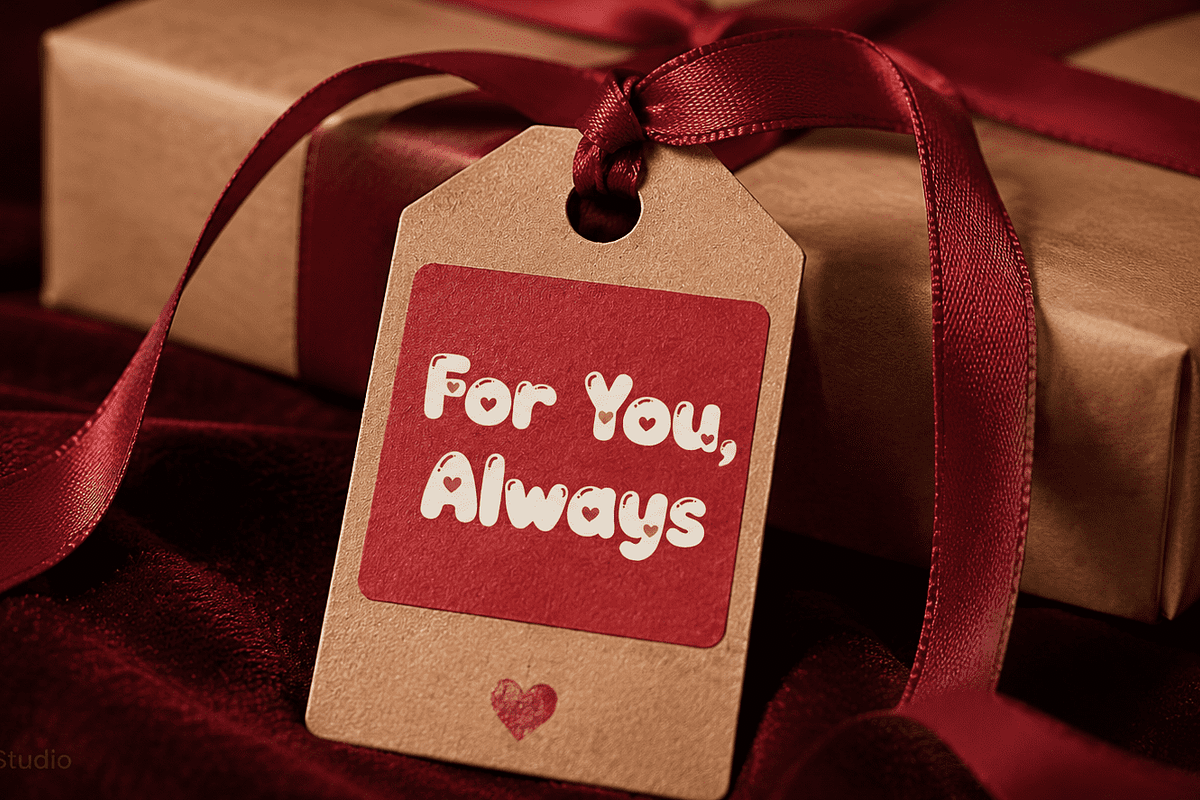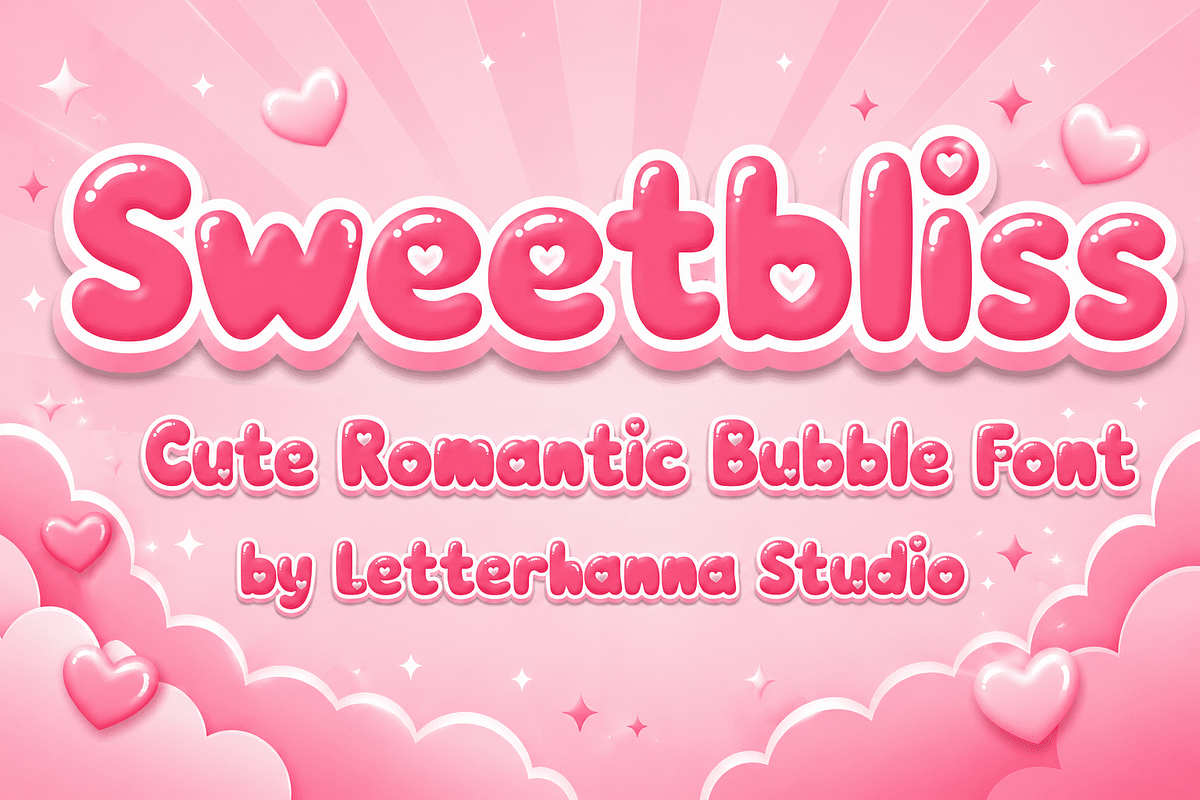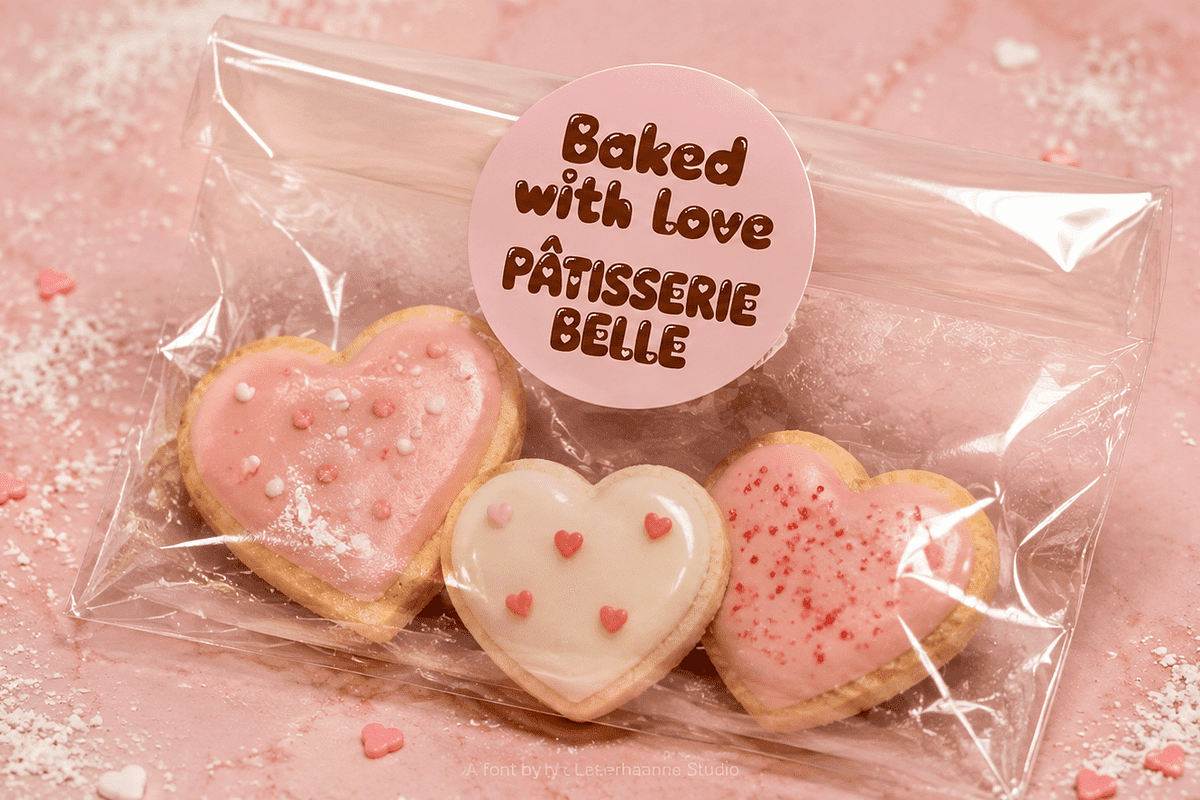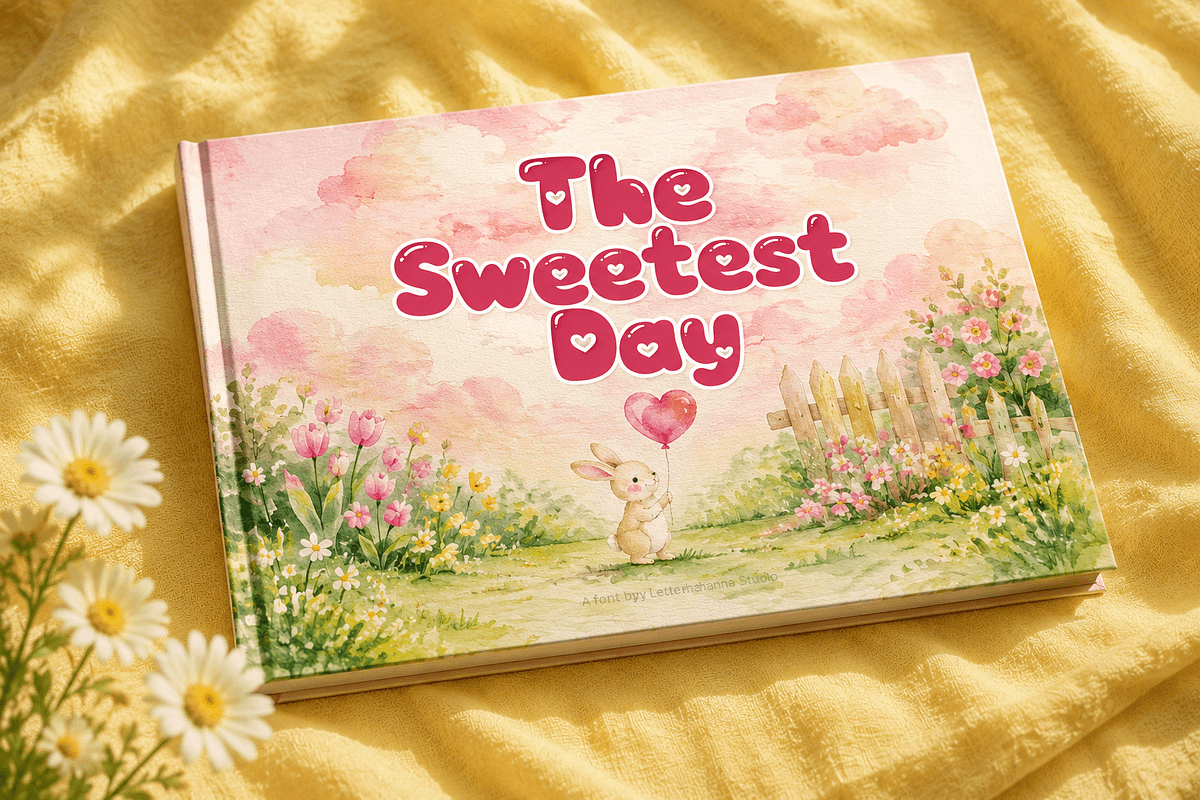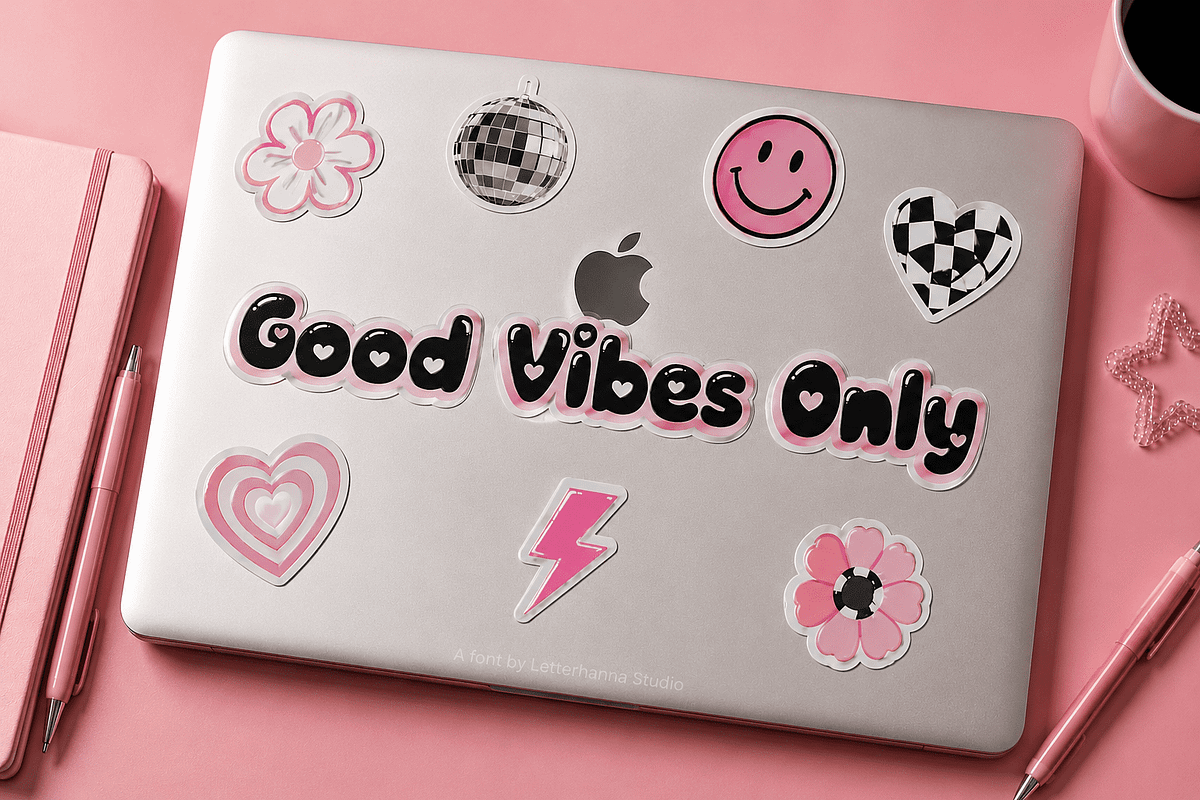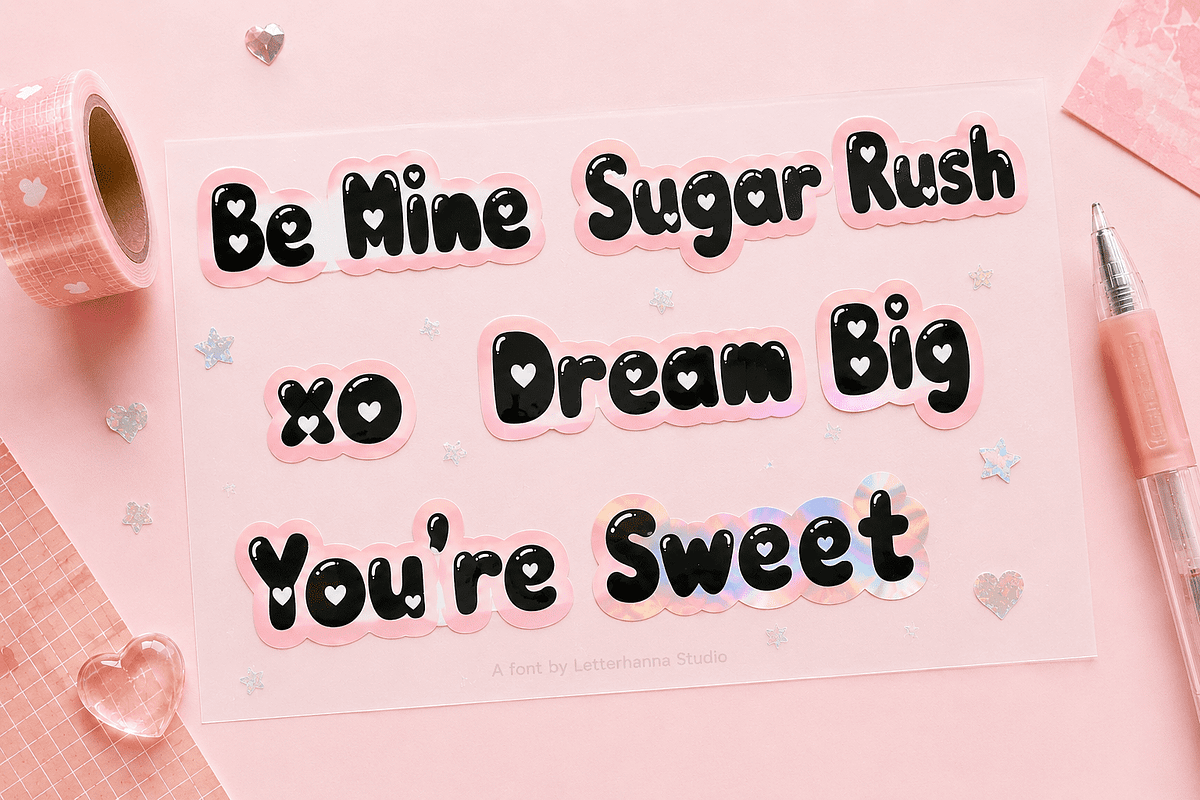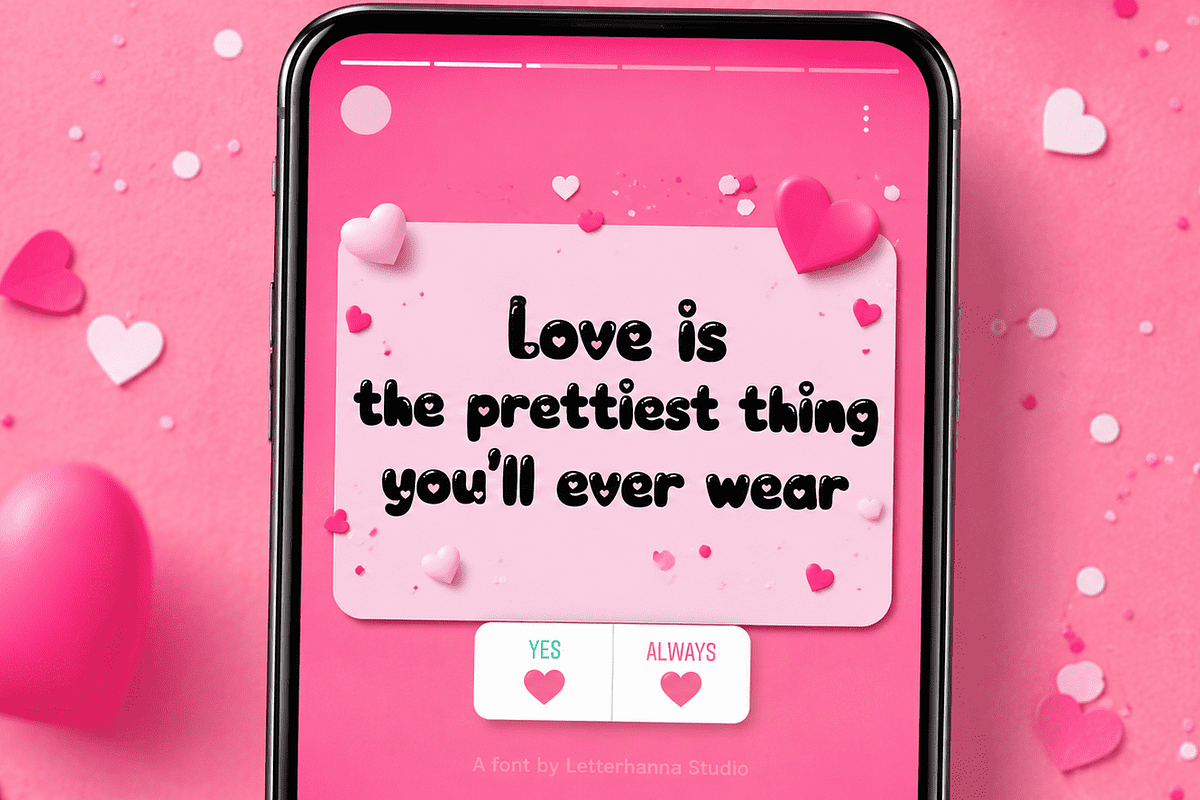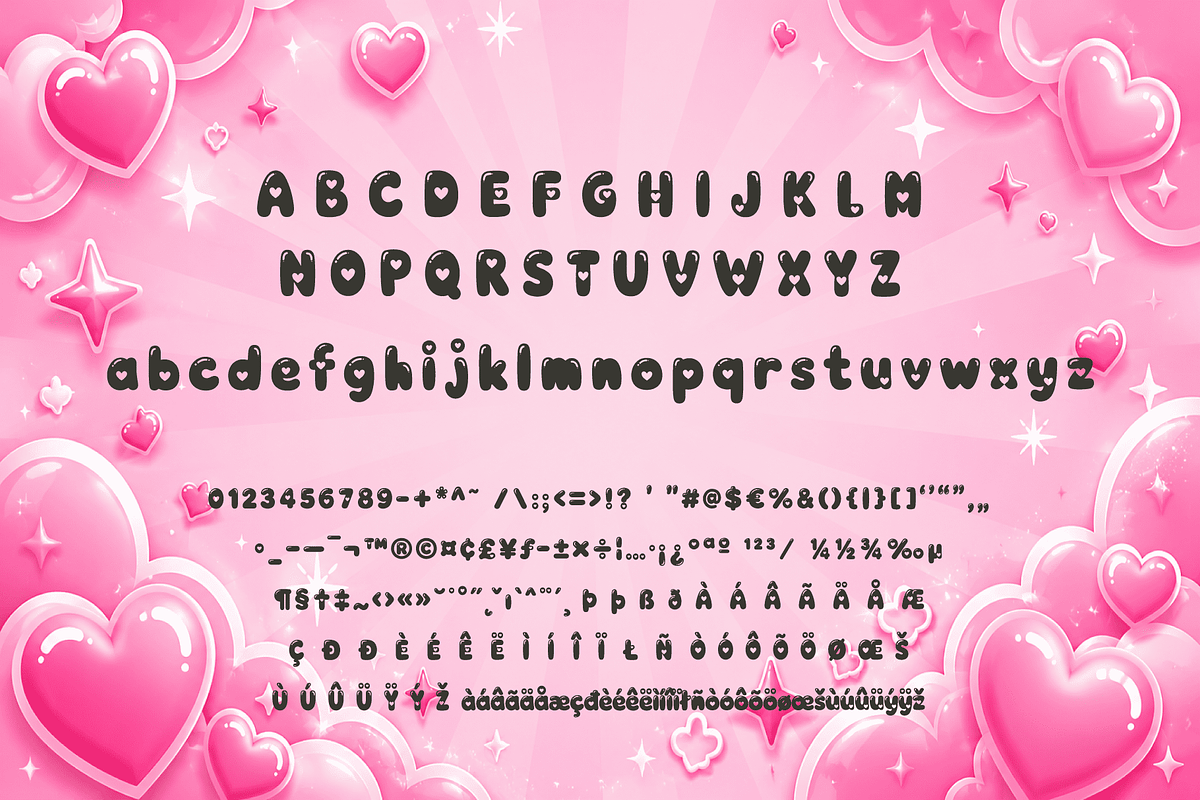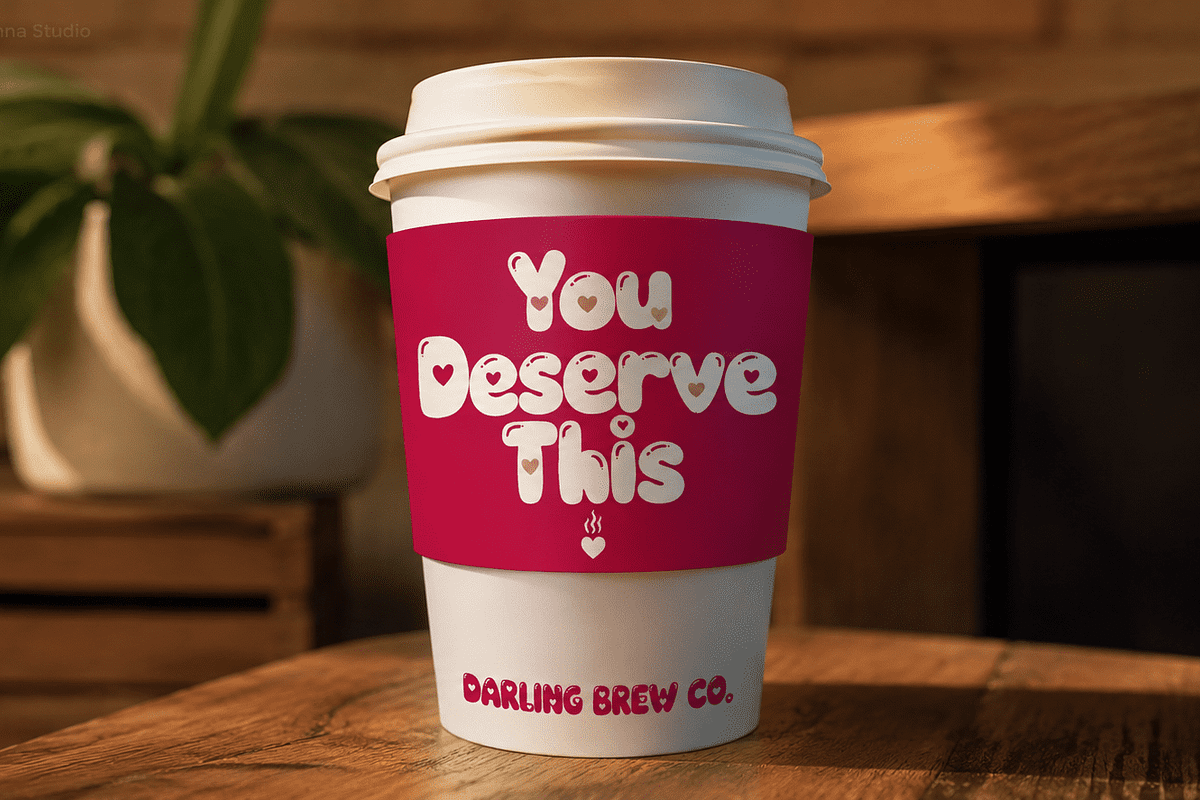
Sweetbliss Font
What if your font could make someone feel something the moment they read it?
That's the question that sparked Sweetbliss — a font born from a single, honest obsession: making letters feel like a warm hug.
Sweetbliss started as a sketch on a quiet afternoon, somewhere between a doodle and a dream. The idea was simple — take the softness of bubble letters, strip away the generic, and inject something deeply personal: tiny heart cutouts hidden inside each letterform, like a love note written in the architecture of the alphabet itself.
Every curve was drawn to feel pillowy, intentional, and full of character. The result is a font that doesn't just display words — it communicates emotion. Whether you're designing a wedding invitation, a baby shower card, a sticker sheet, a Valentine's Day campaign, or a self-care brand identity, Sweetbliss brings that irresistible "aww" factor that makes people stop scrolling and start feeling.
It's not just cute. It's strategically cute.
Sweetbliss was designed for creators who understand that aesthetics are a language — and that the right font can whisper "I love you," shout "celebrate this," or simply make someone smile at first glance.
This font is for the designers, Etsy sellers, small shop owners, content creators, and brands who build worlds where warmth is the whole point.
If you've ever wanted your work to feel like cotton candy melting on a summer afternoon — Sweetbliss is your font.
Perfect for: wedding stationery, Valentine's designs, baby showers, children's brands, beauty products, greeting cards, social media graphics, packaging, and anywhere a little sweetness goes a long way.